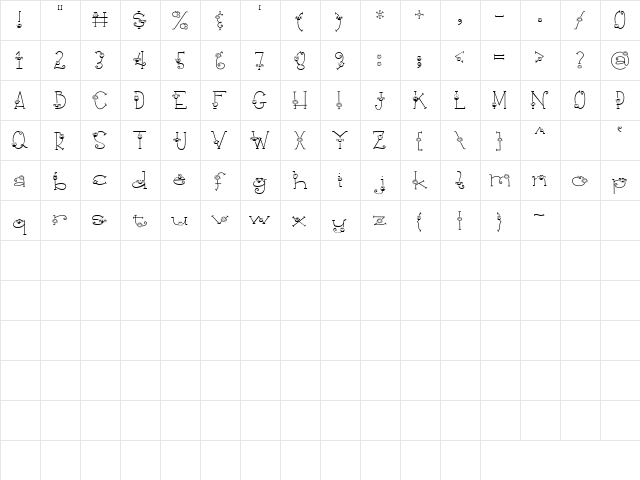
CK Happy Kids Regular
Design Context for CK Happy Kids Typeface
CK Happy Kids has an approachable, lighthearted character — its loose, expressive forms are well-suited to children's content, casual branding, and fun-first design.
Font Pairing: Pairs well with a rounded or humanist sans for body copy, maintaining the friendly tone without relying on CK Happy Kids to carry extended reading.
Pro Tip: Use CK Happy Kids at larger display sizes where its expressive character can land. Pair with a clean, simple sans for body copy to maintain readability.